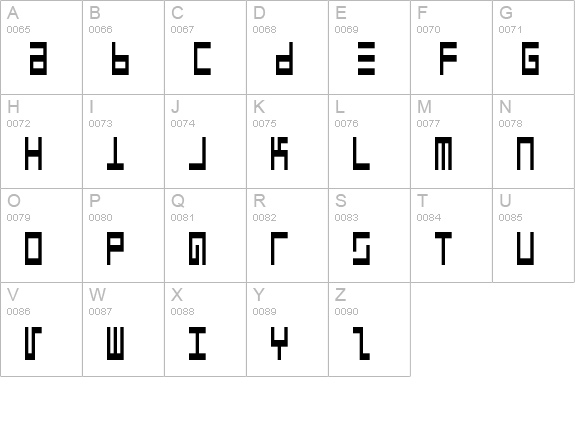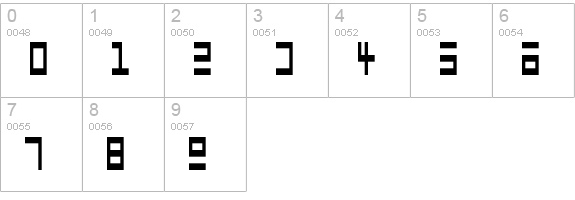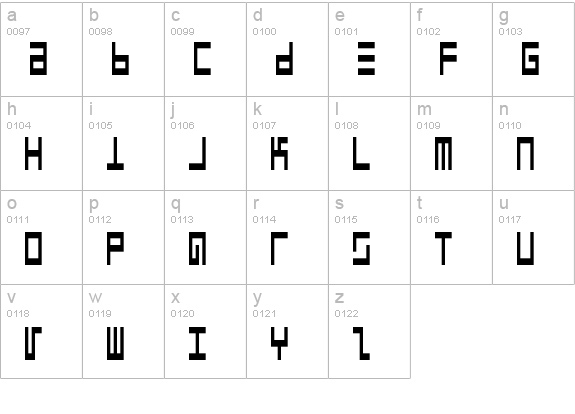
Epps Evans Narrow is a distinctive, condensed-width variant in the Epps typeface family \xE2\x80\x94 well suited to design and typography projects.
Epps Evans Narrow font is a sleek and elegant typeface designed for projects that require a touch of modern sophistication. Its clean lines and narrow letterforms make it perfect for creating a polished and professional look in various design applications. Whether you're working on branding materials, editorial design, or web projects, Epps Evans Narrow font will add a touch of refinement to your work. The best part? Epps Evans Narrow font is completely free to download at FontsMarket.com. With just a few clicks, you can add this versatile font to your collection and start using it in your projects right away. Don't miss out on this opportunity to enhance your designs with the timeless elegance of Epps Evans Narrow font. Download it now and let your creativity shine!